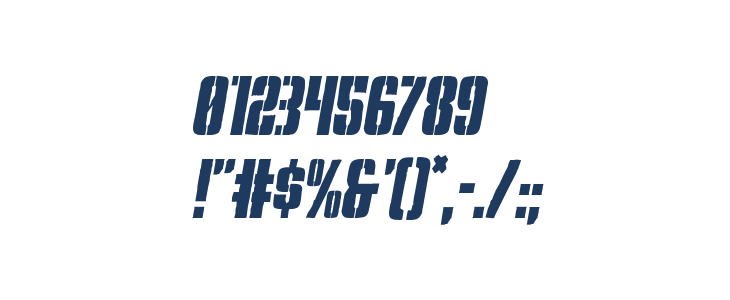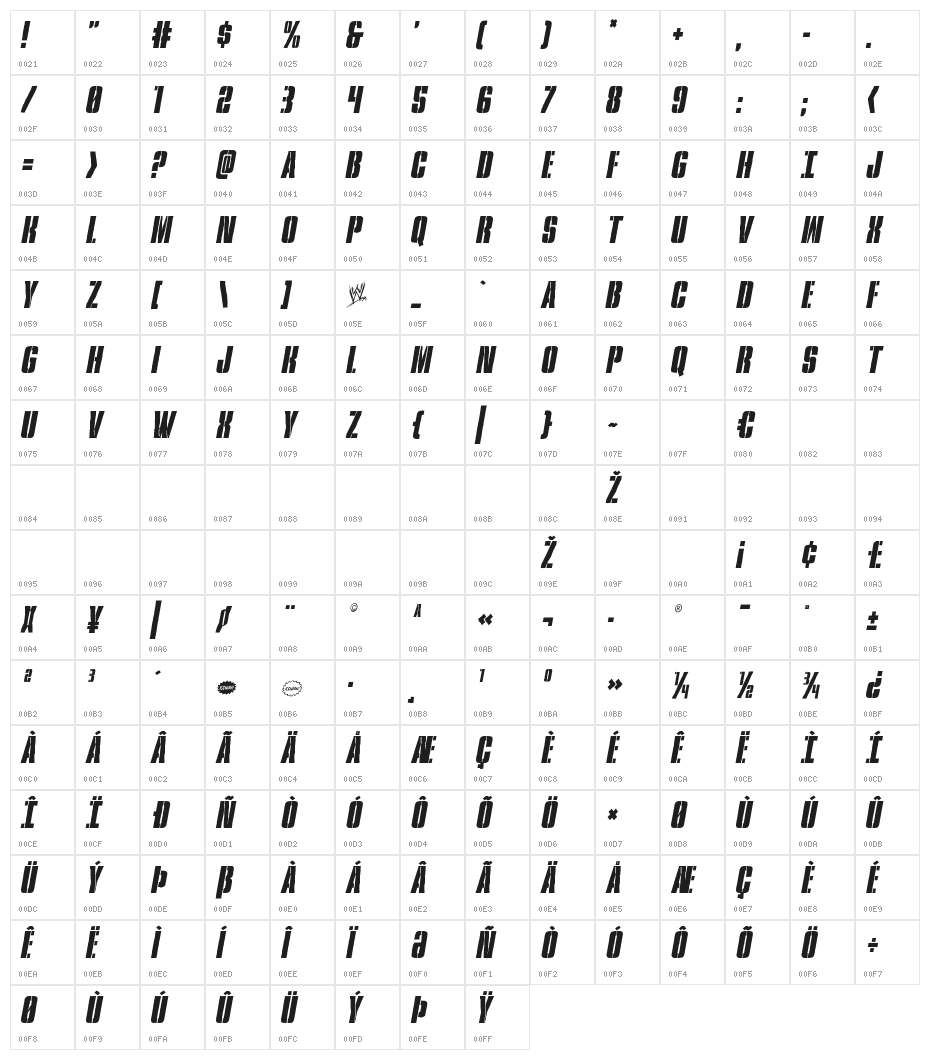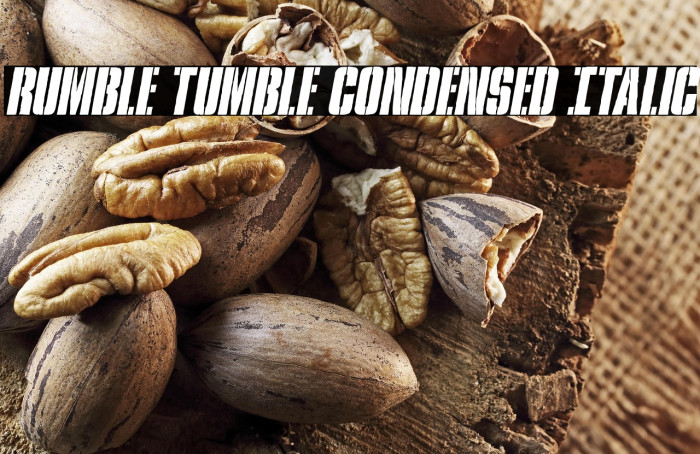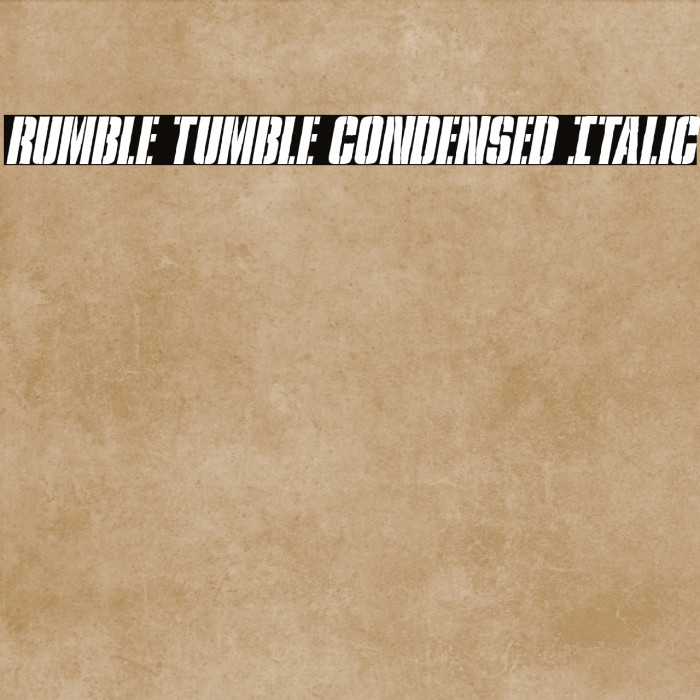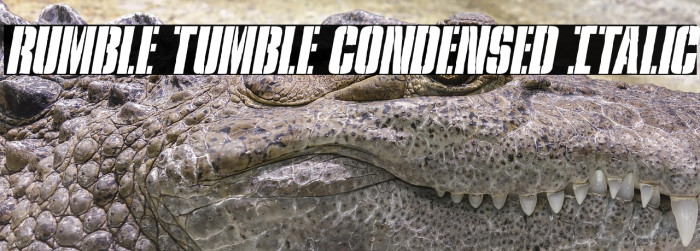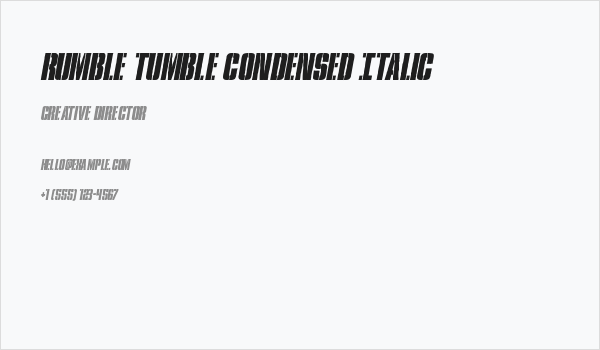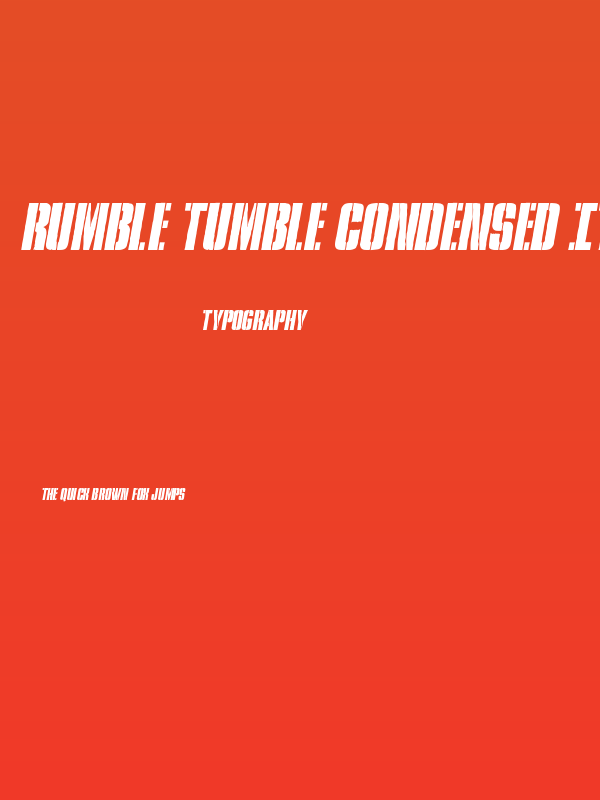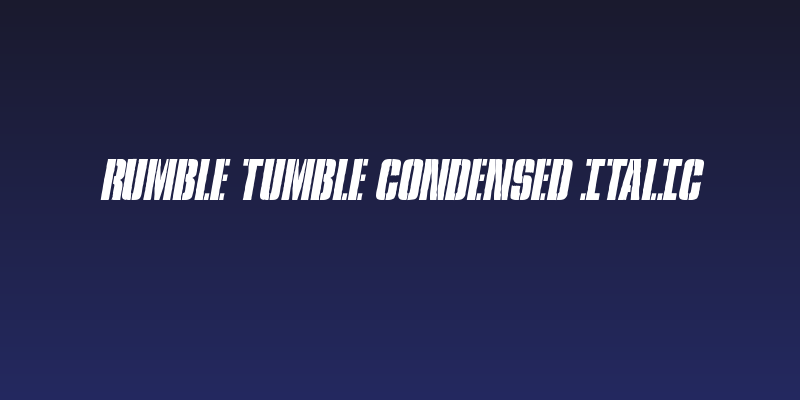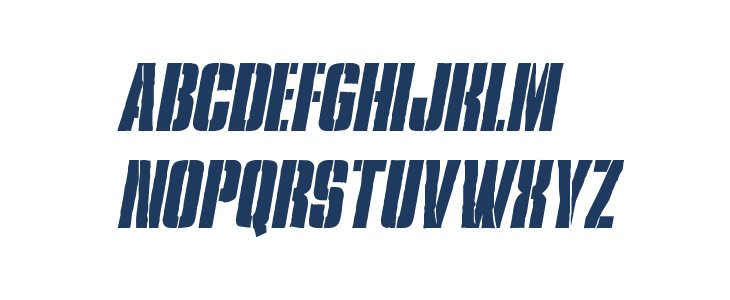
Rumble Tumble Condensed Italic Font
Rumble Tumble Condensed Italic Description
This font features a bold, condensed style with a distinct italic slant, giving it a dynamic and energetic appearance. The characters are tightly spaced, enhancing the compactness of the design. The strokes are thick and consistent, contributing to a strong visual impact. The uppercase and lowercase letters maintain a uniform height, while the numerals and special characters are designed to match the overall bold aesthetic. This font's aggressive and modern look makes it suitable for attention-grabbing headlines and impactful designs.